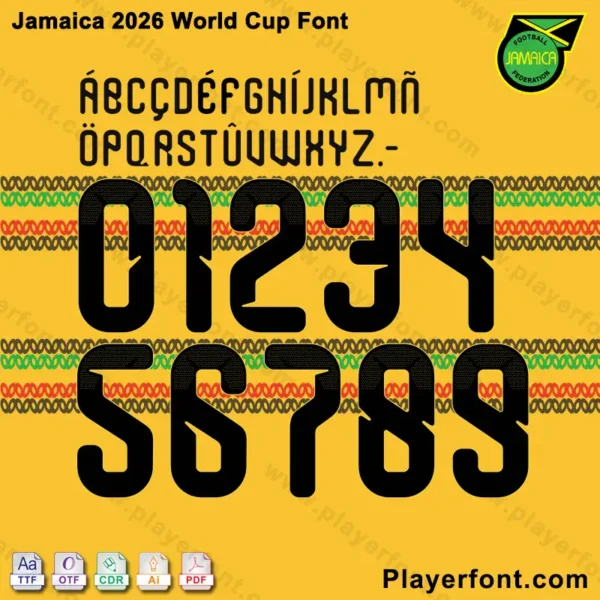
Jamaica 2026 World Cup Font Kit
Capture the unique energy of the Jamaica National Team with our Jamaica 2026 World Cup Font kit. Specifically engineered for professional sports designers and jersey enthusiasts, this kit provides the exact aesthetic needed for the upcoming 2026 international tournament.
• Complete Set: Includes uppercase letters A-Z and numbers 0-9, featuring the iconic JFF (Jamaica Football Federation) logo integrated into the base of the numerals.
Jamaica 2026 World Cup font numbers and letters preview with JFF logo detail.Jamaica 2026 World Cup Font Kit